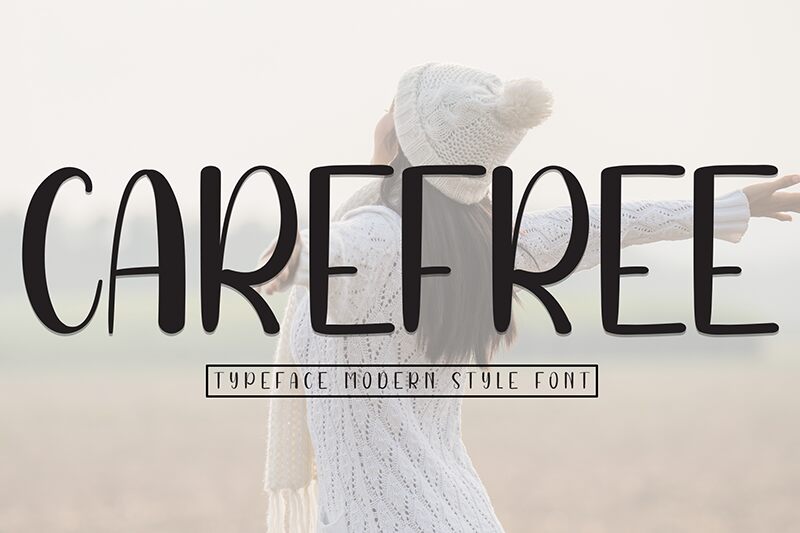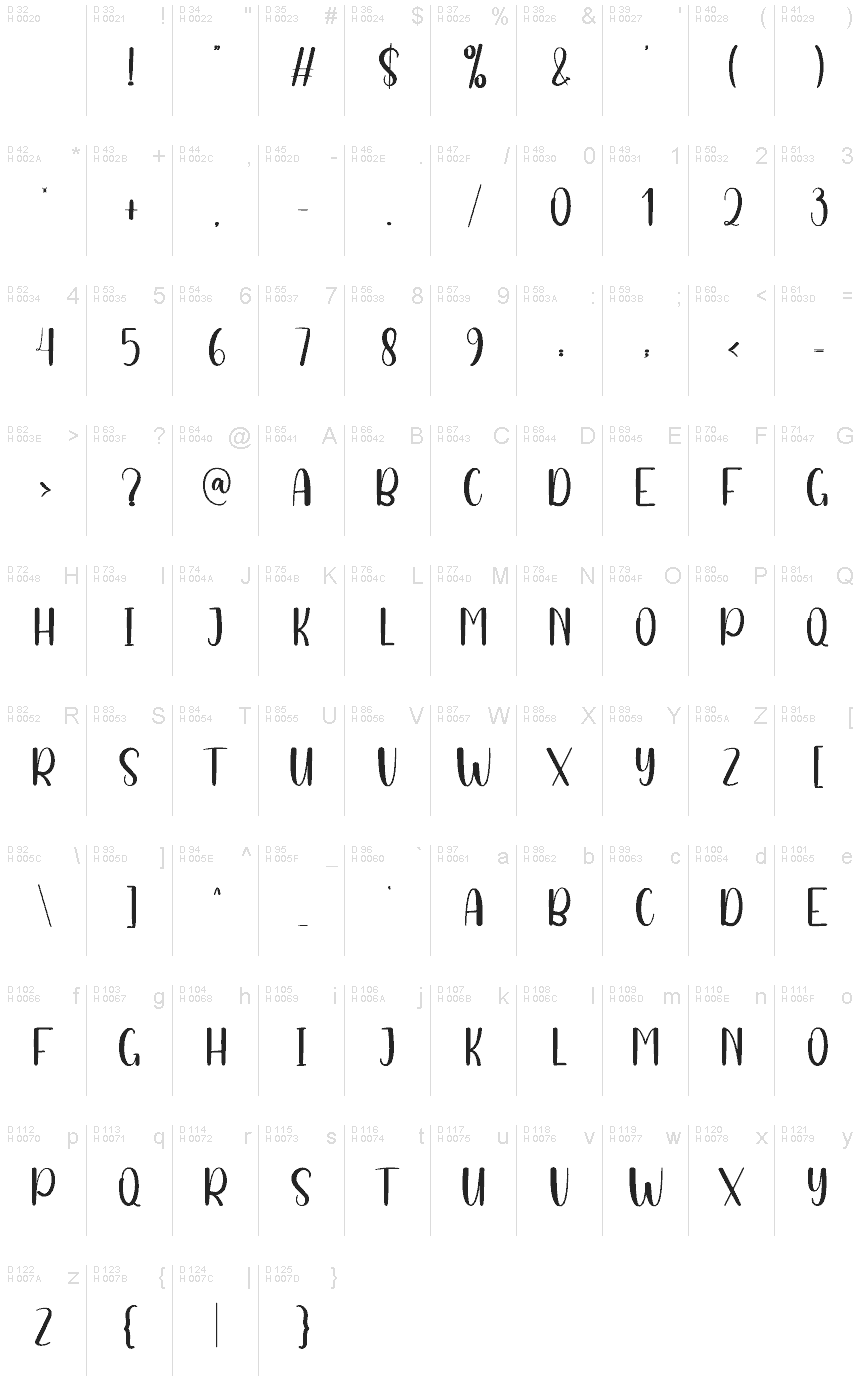
Carefree
The Carefree hand-drawn font was created by designer Andi Moz for modern applications such as logos, headings, book titles, flyers and postcards, and clothing items.
The condensed Carefree font is bold and elegant with a youthful presence, and its style draws from the 70s and modern Art Deco movements. This combination allows it to convey messages that are both vintage and fashionable. Add a youthful twist to your design projects with this classic font by using the Carefree font for headlines and subtitles on websites and blogs.